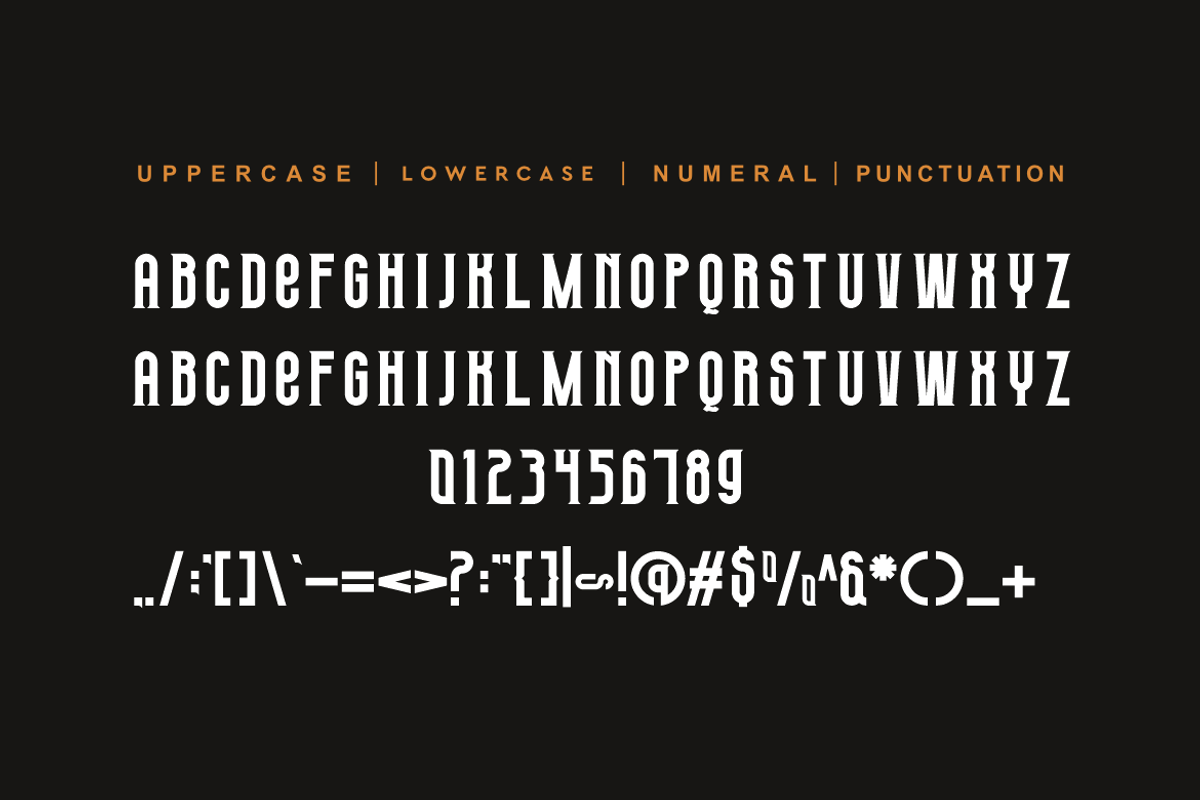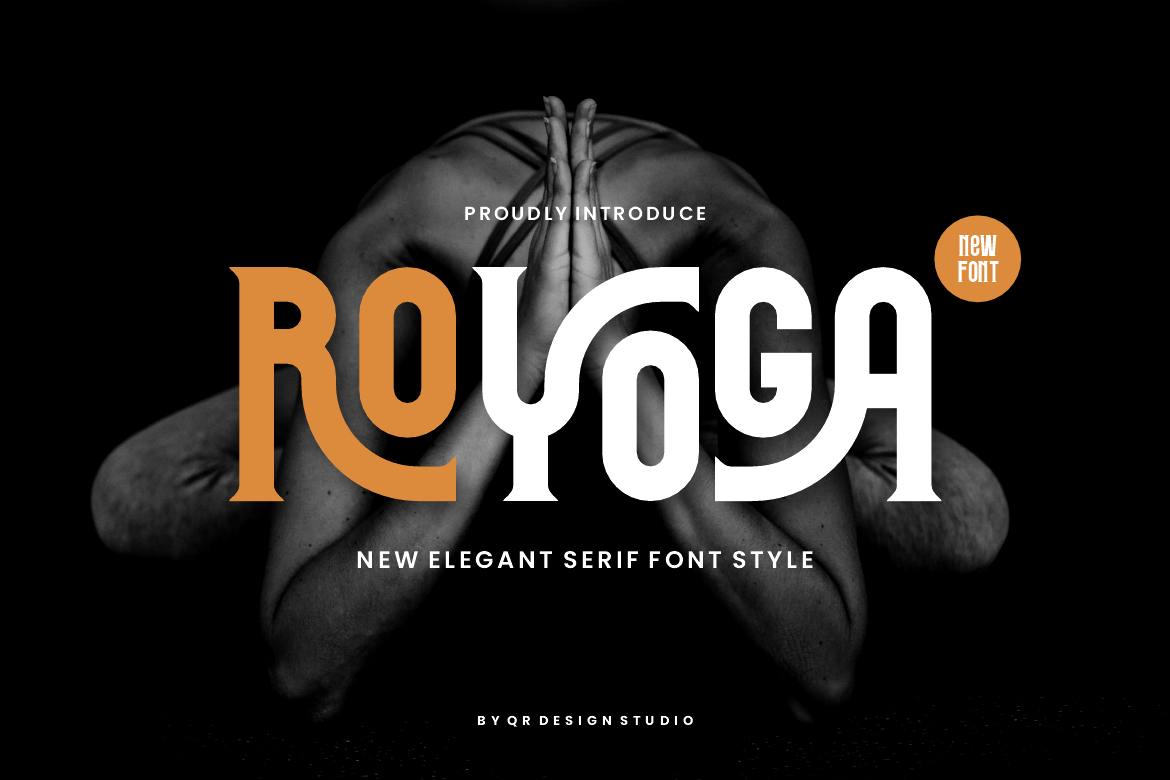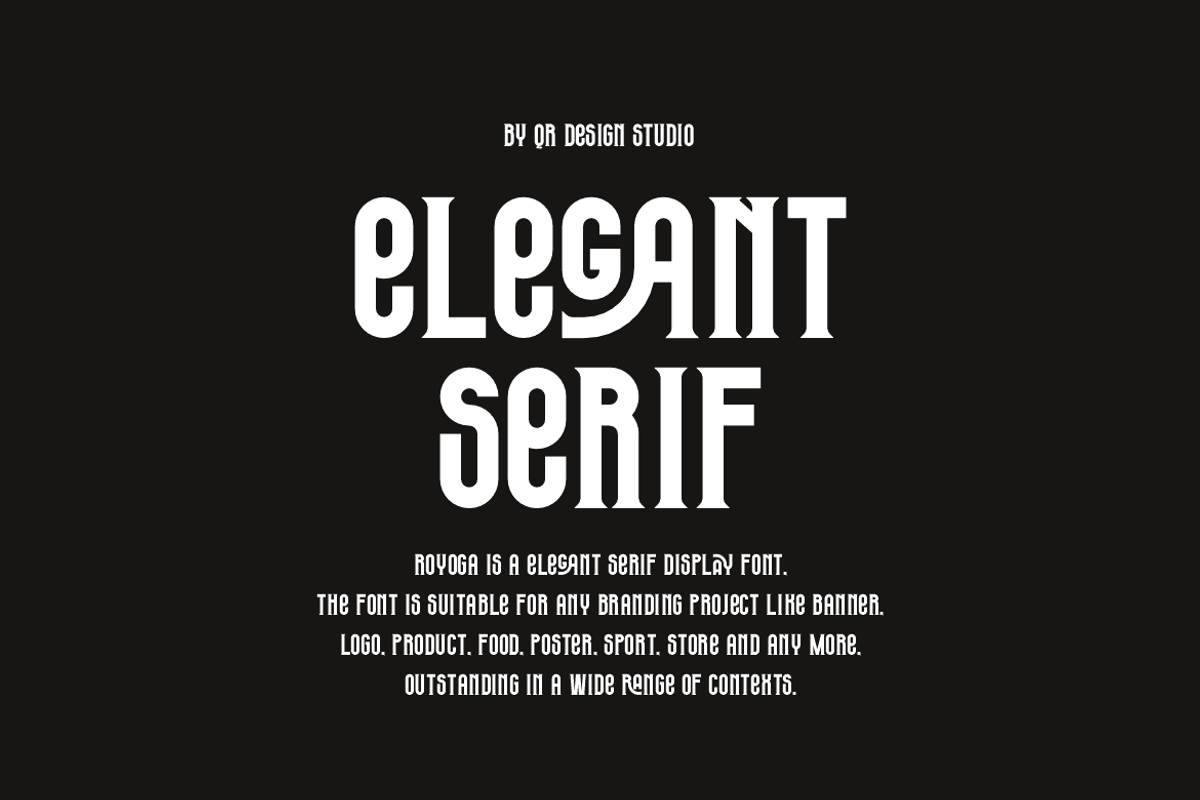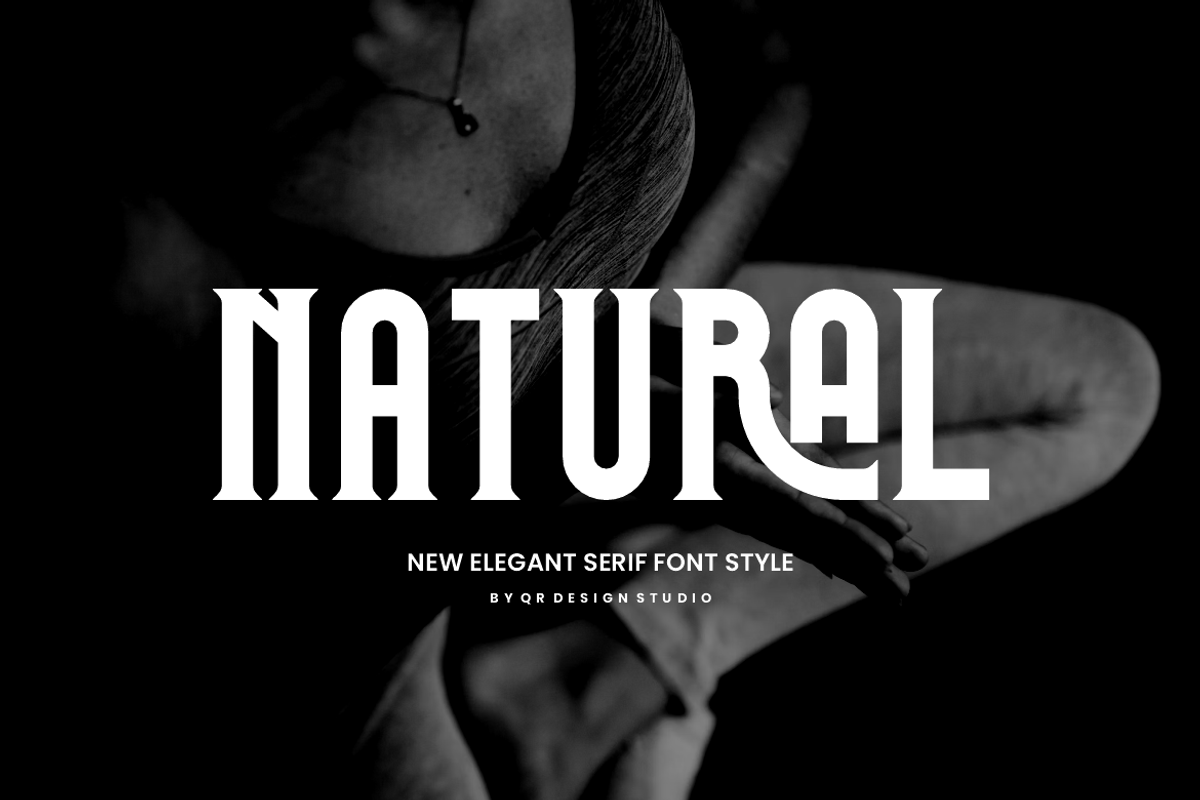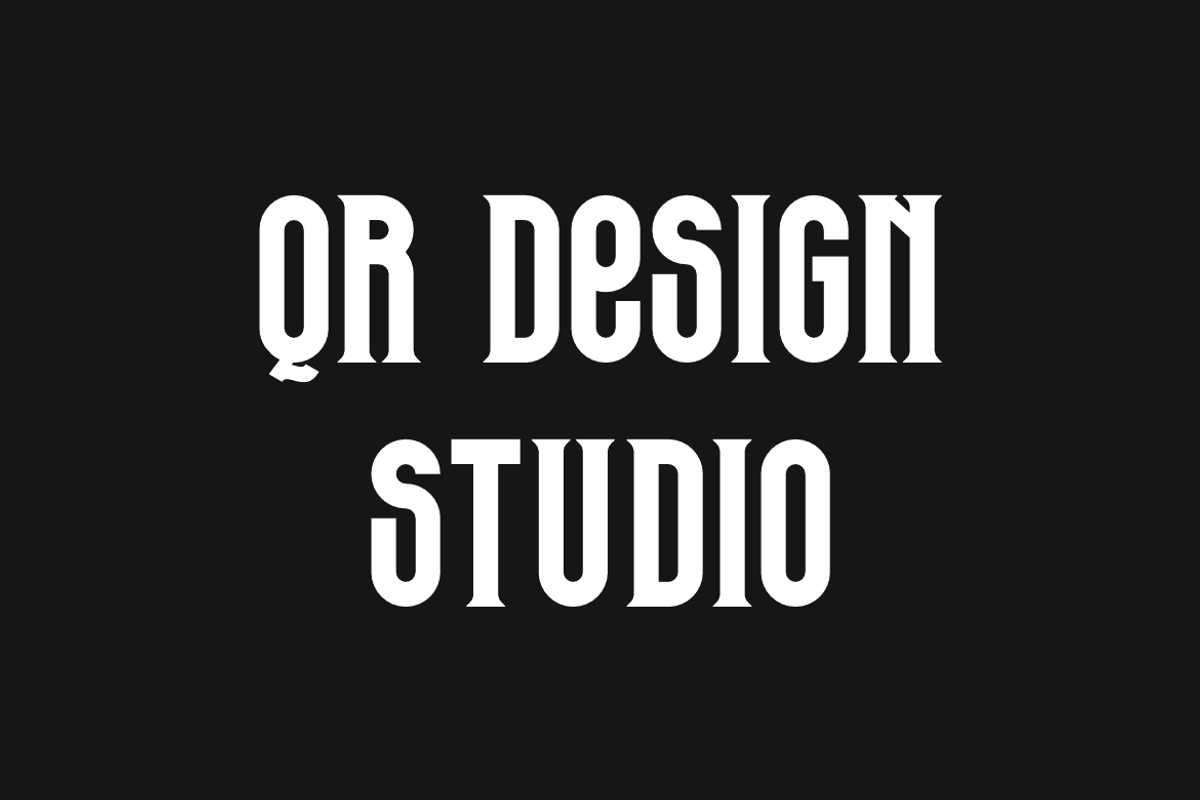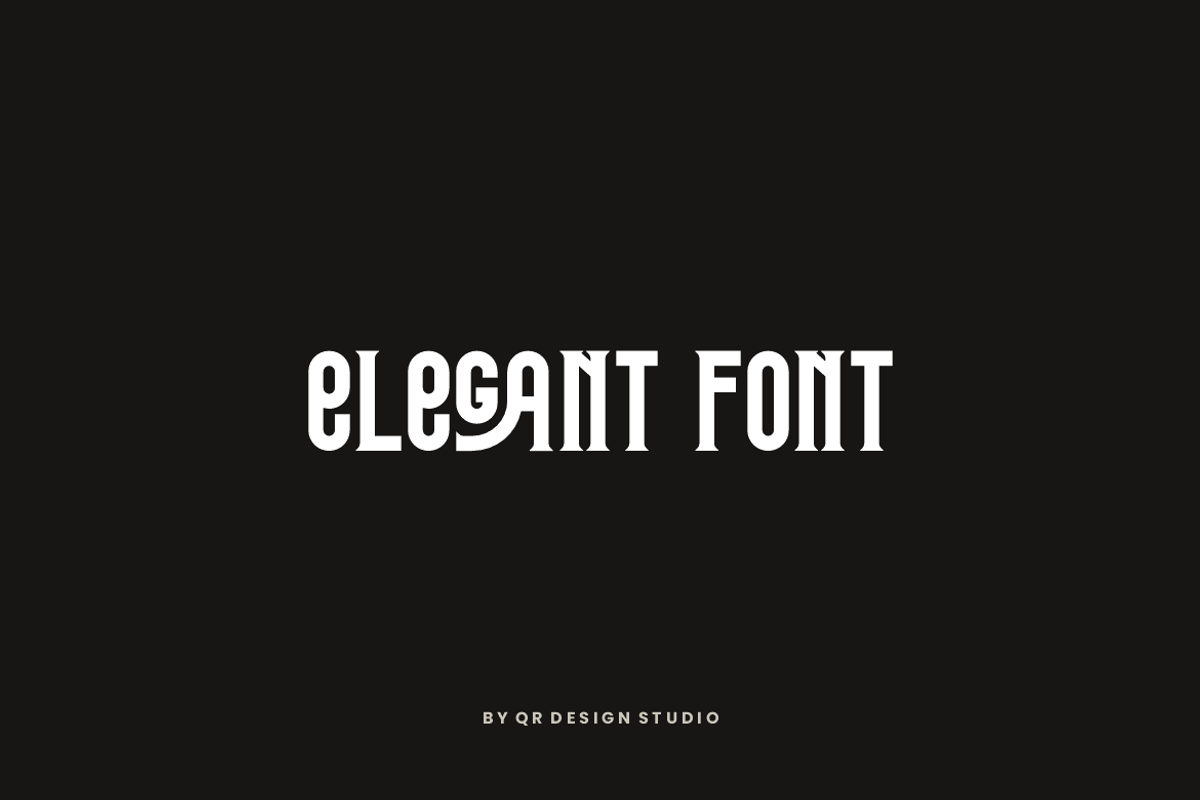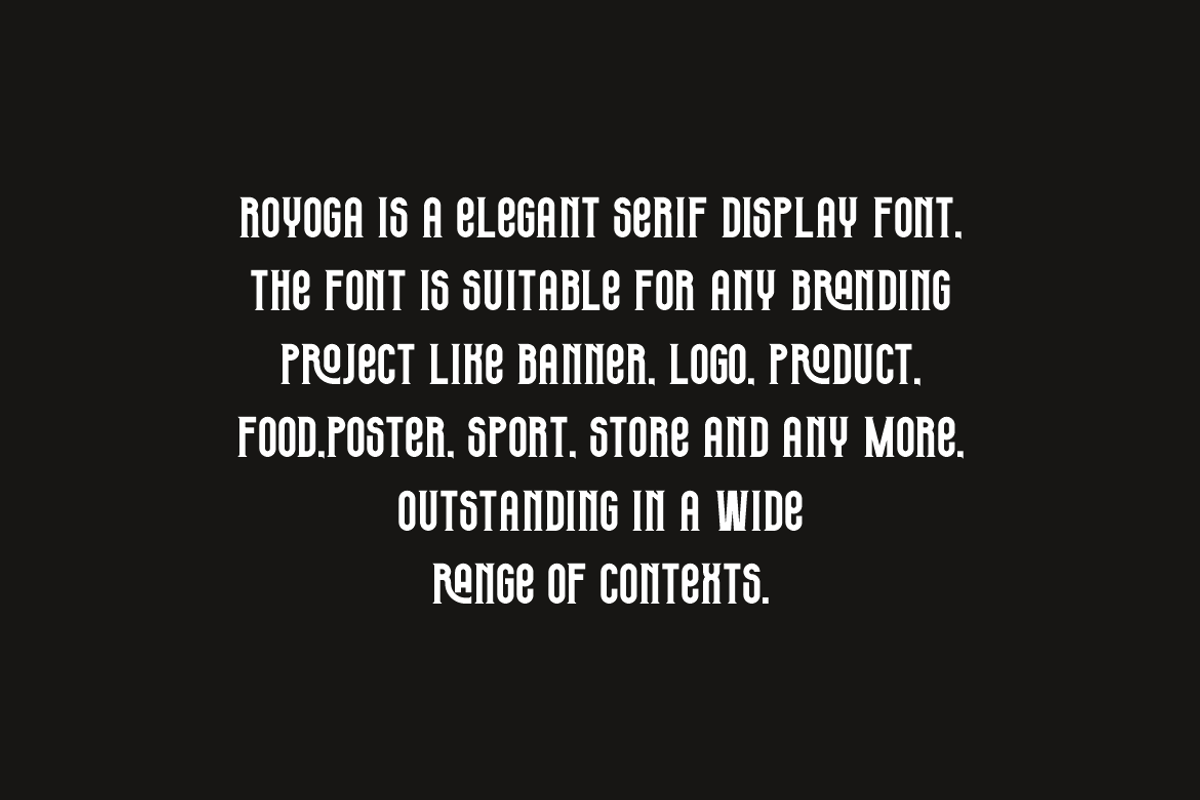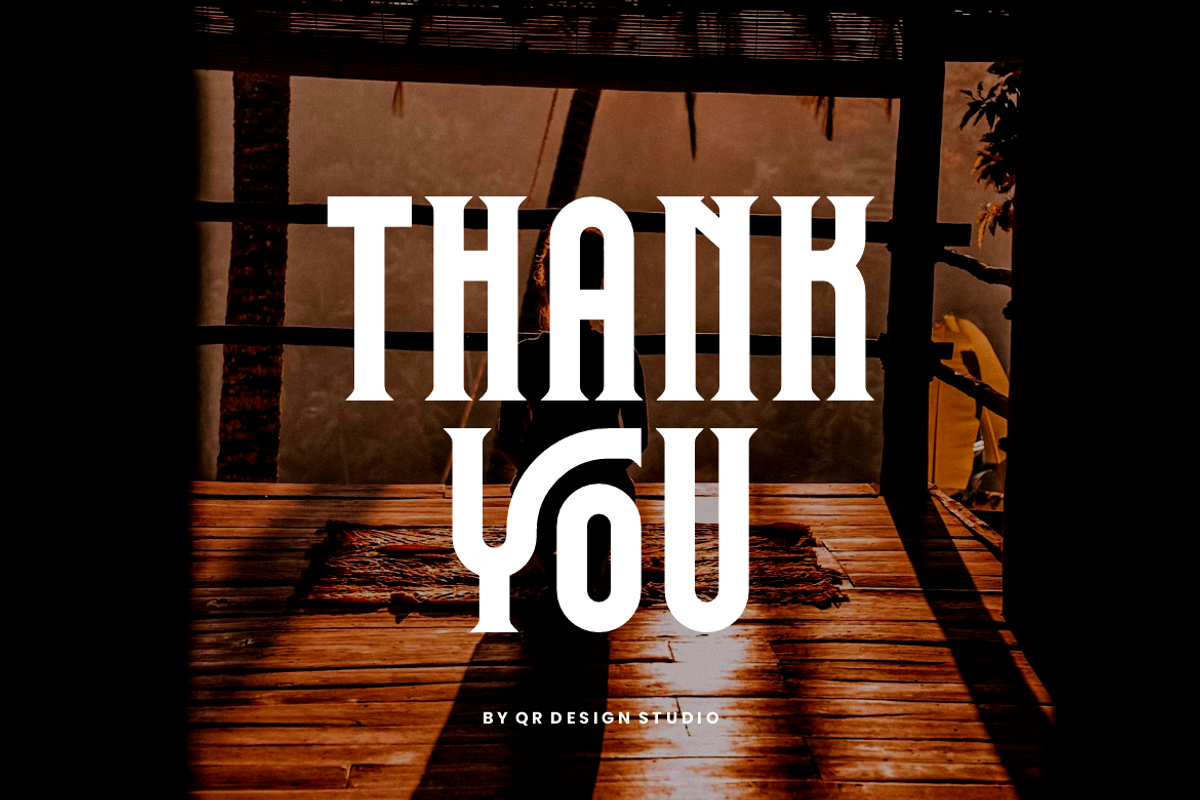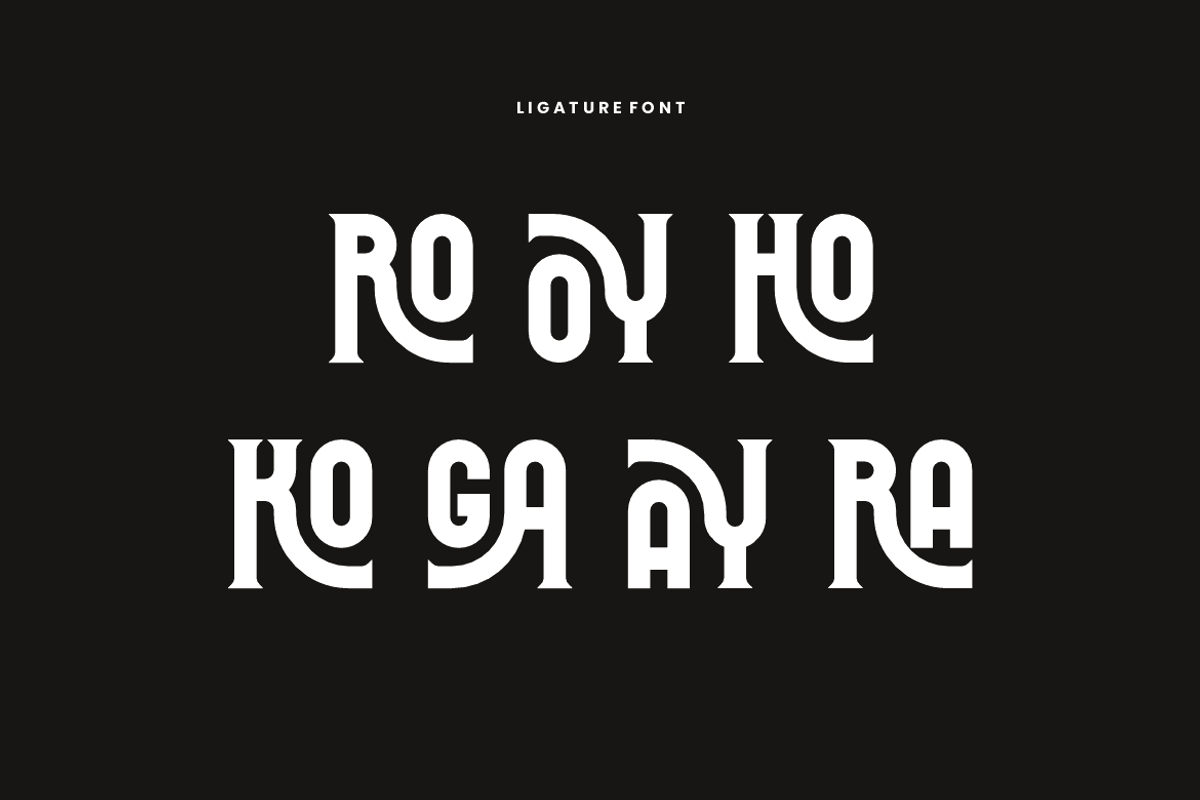
Royoga - Elegant Serif & Yoga Font
Royoga Font is a bold and authentic display font. The font is suitable for any branding project like poster, logo, sport, and many more. Outstanding in a wide range of contexts.